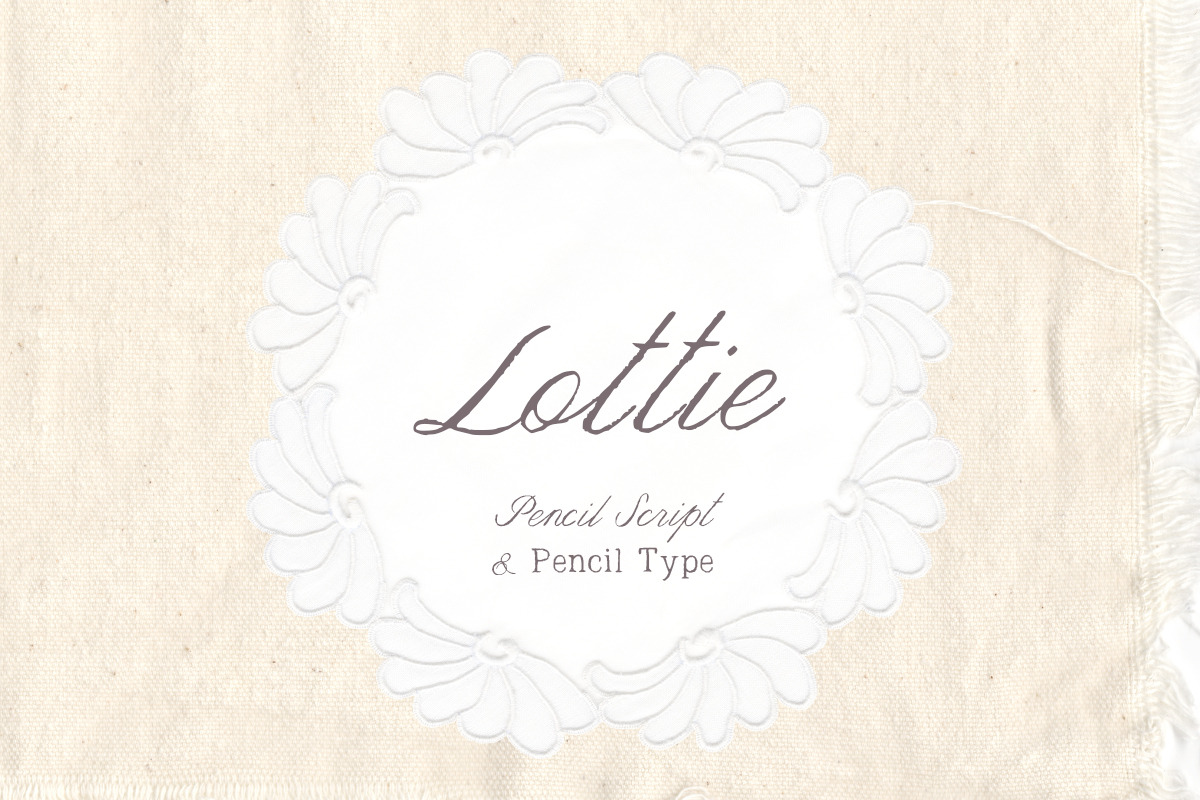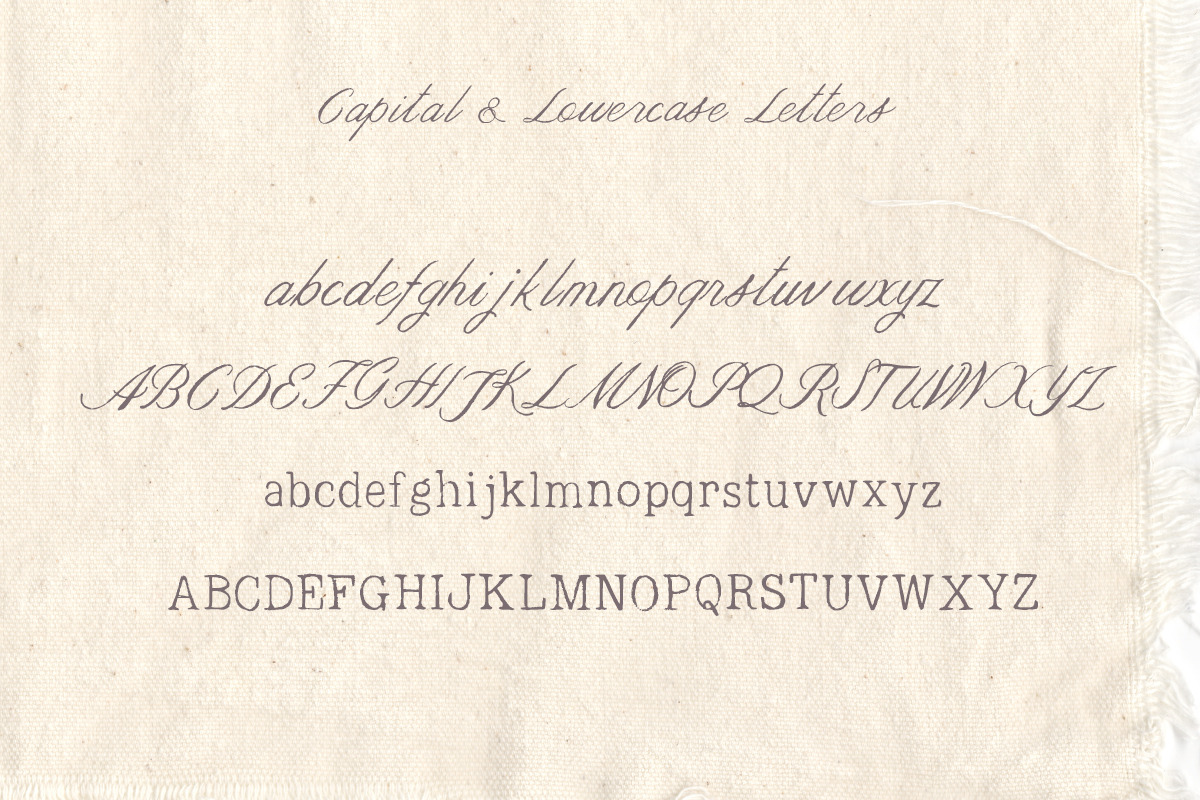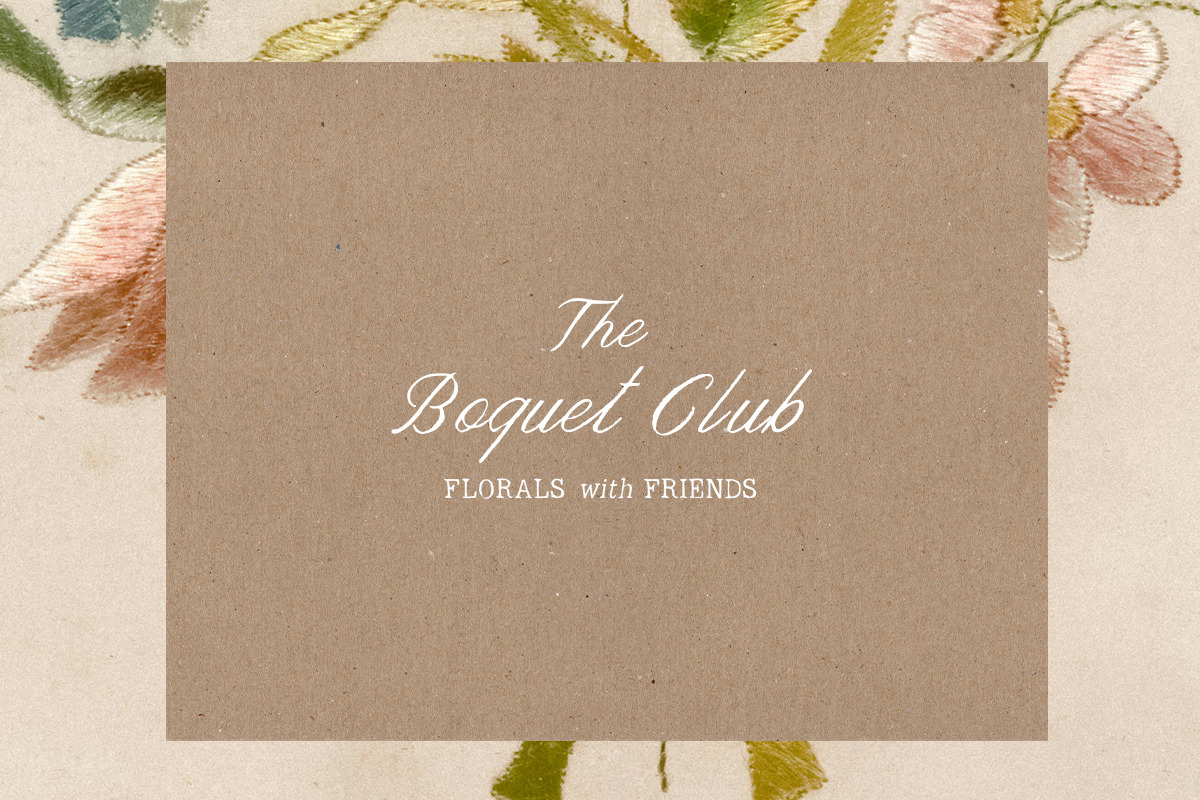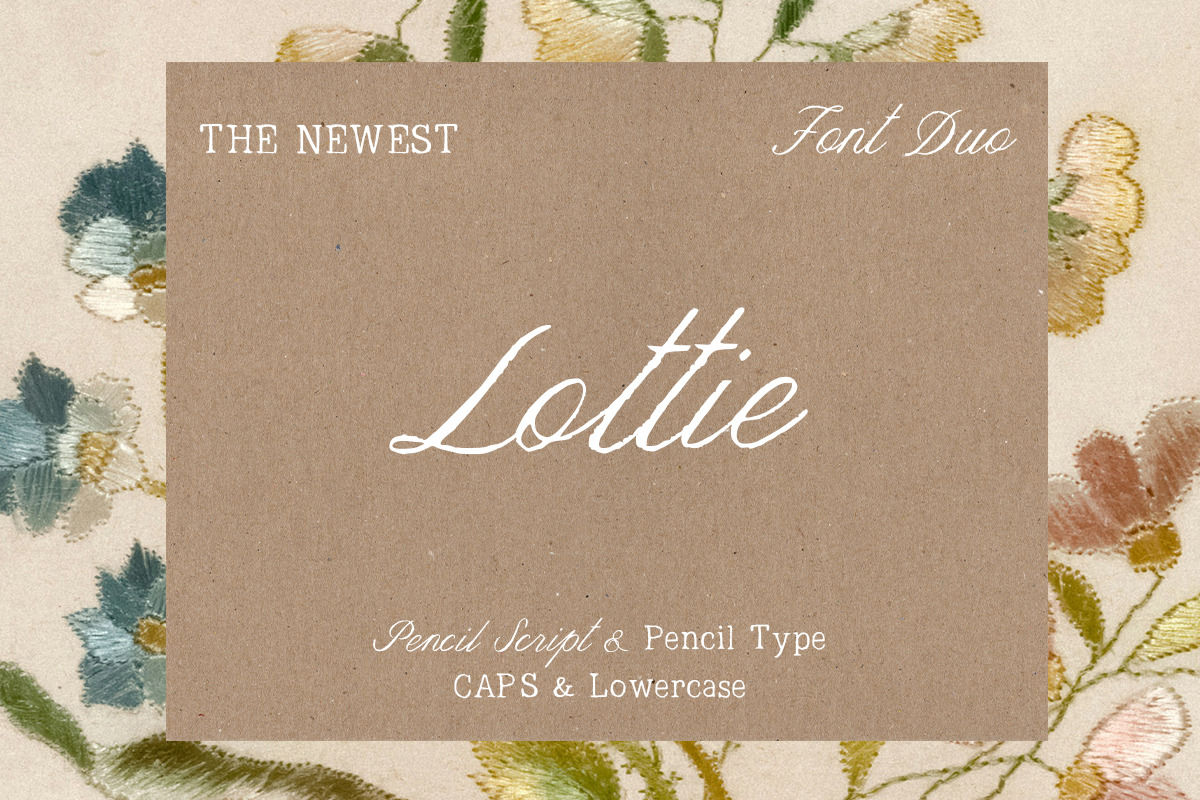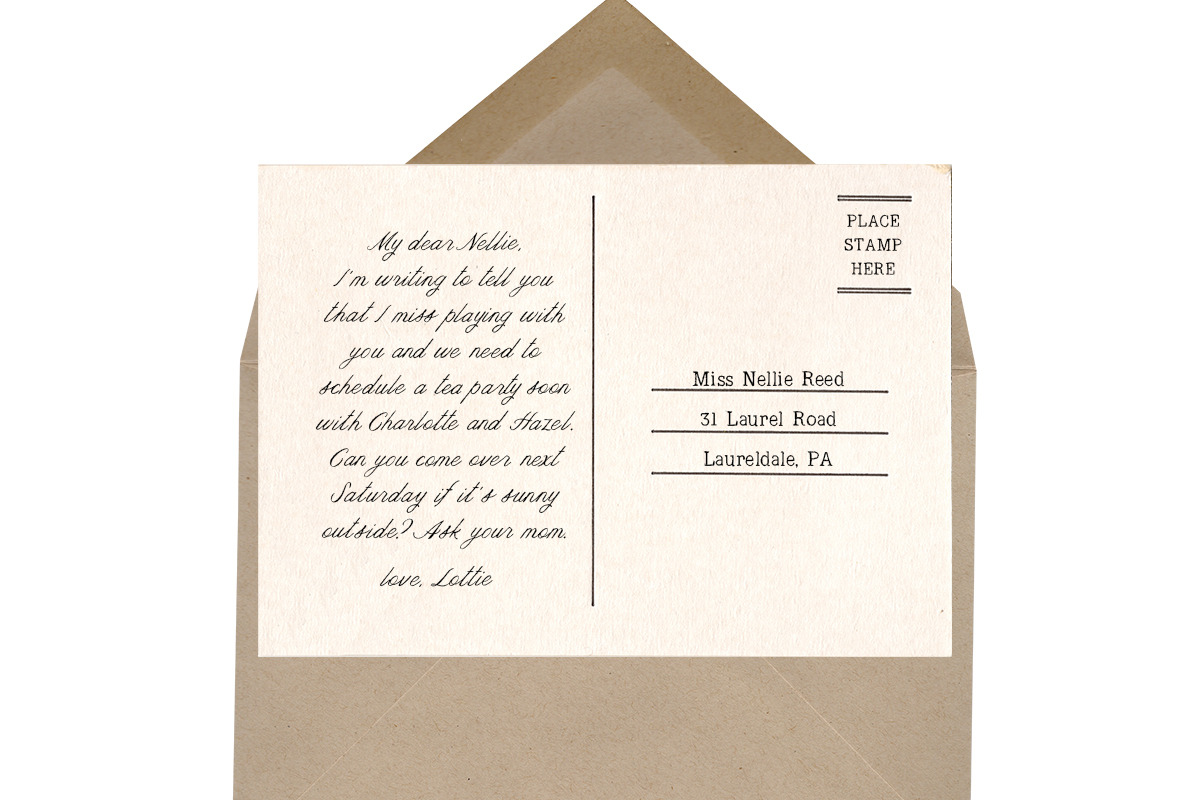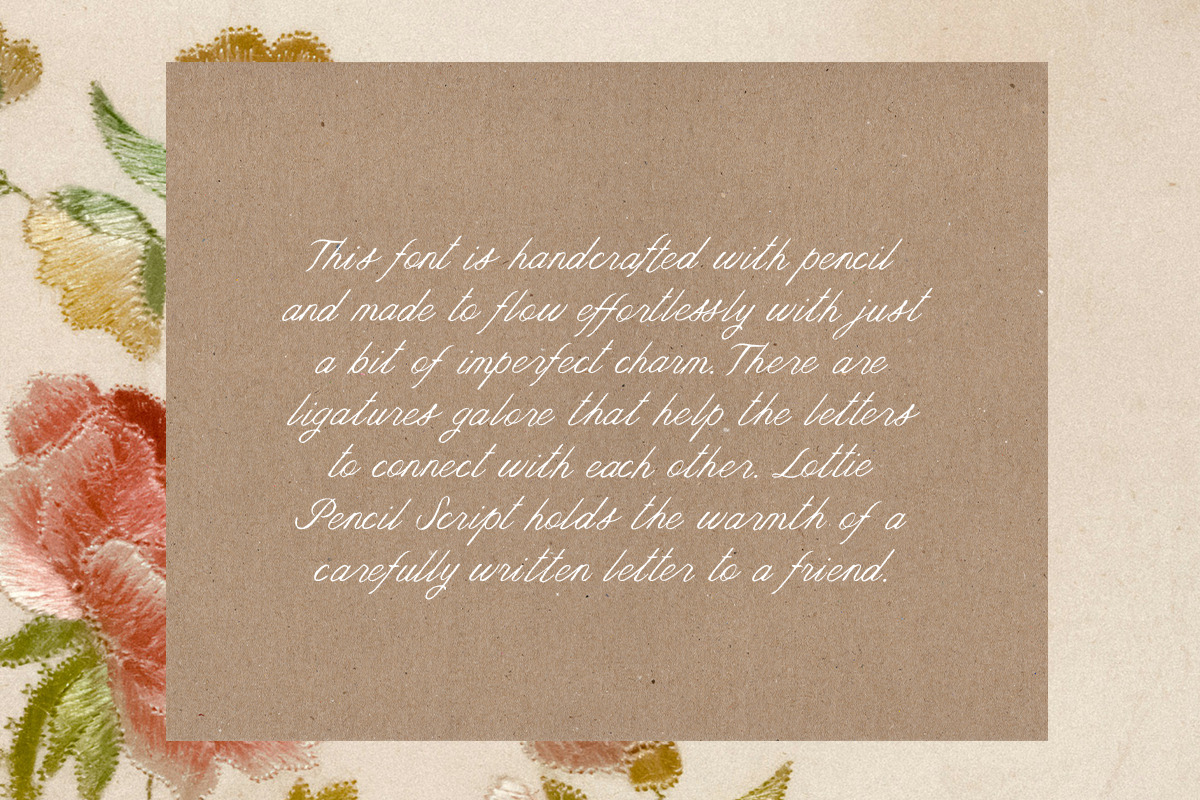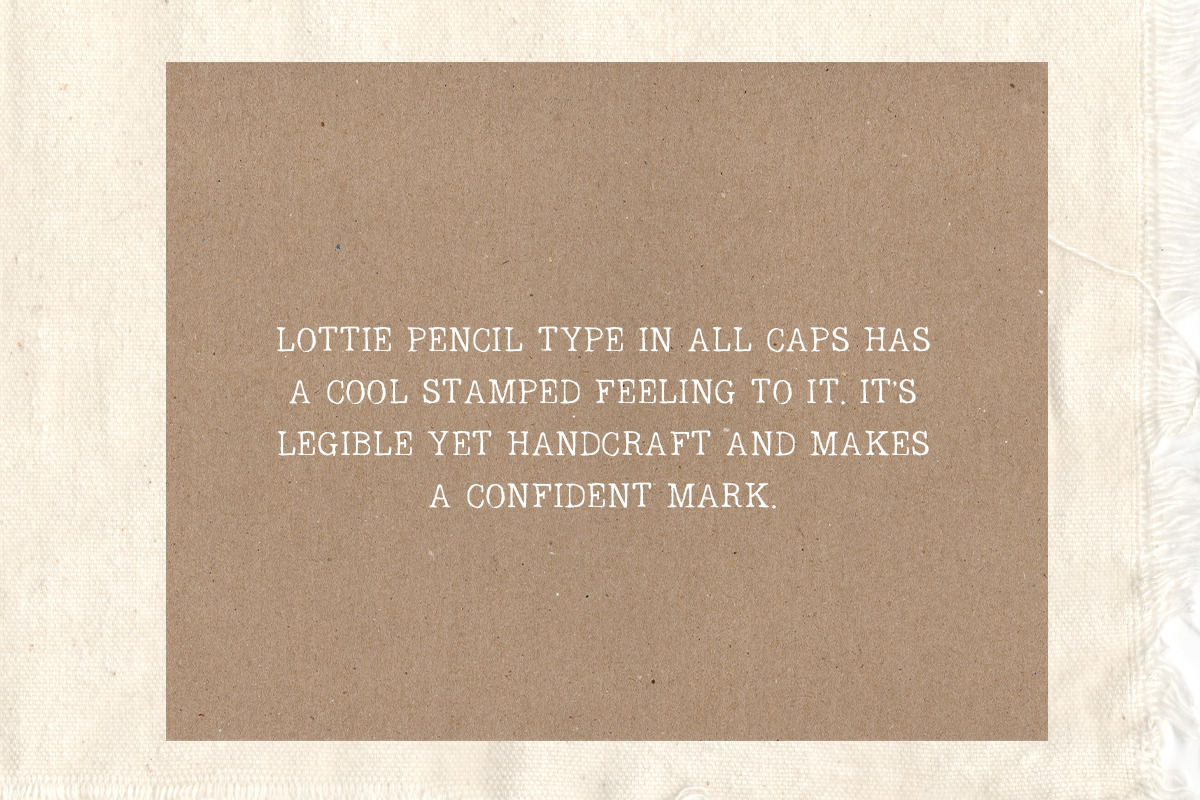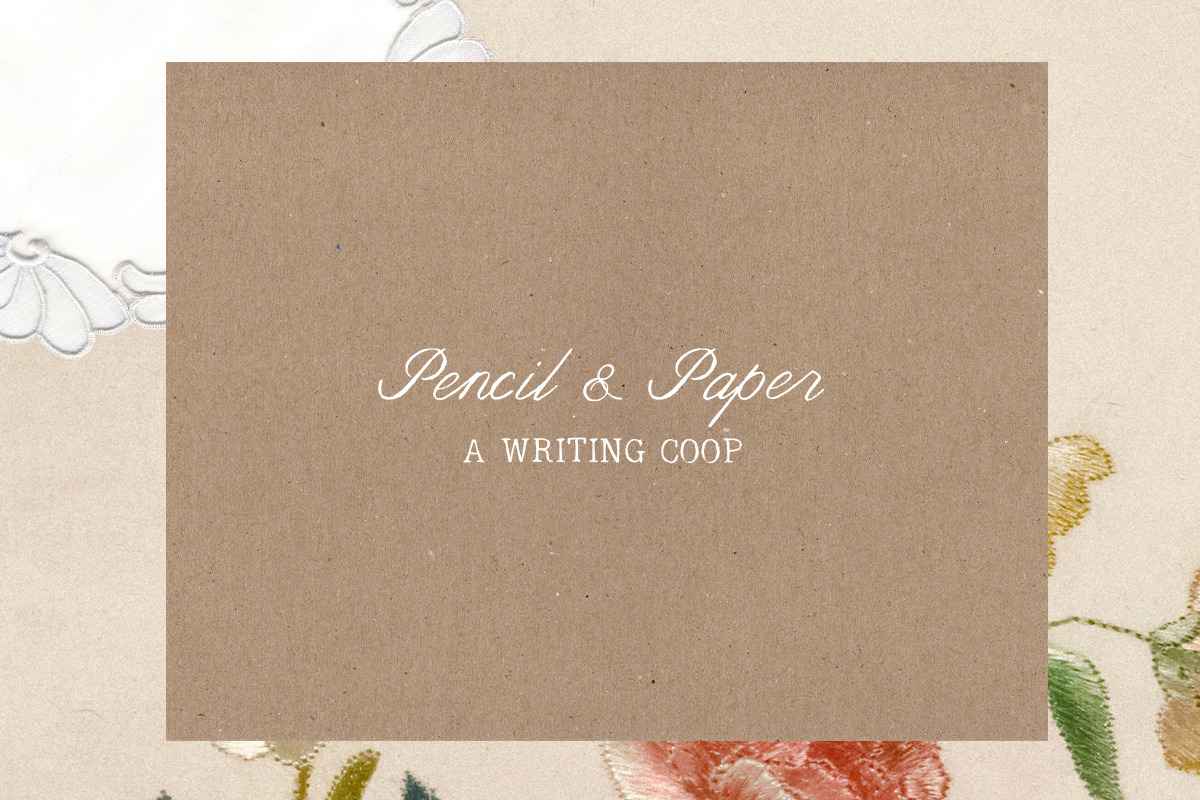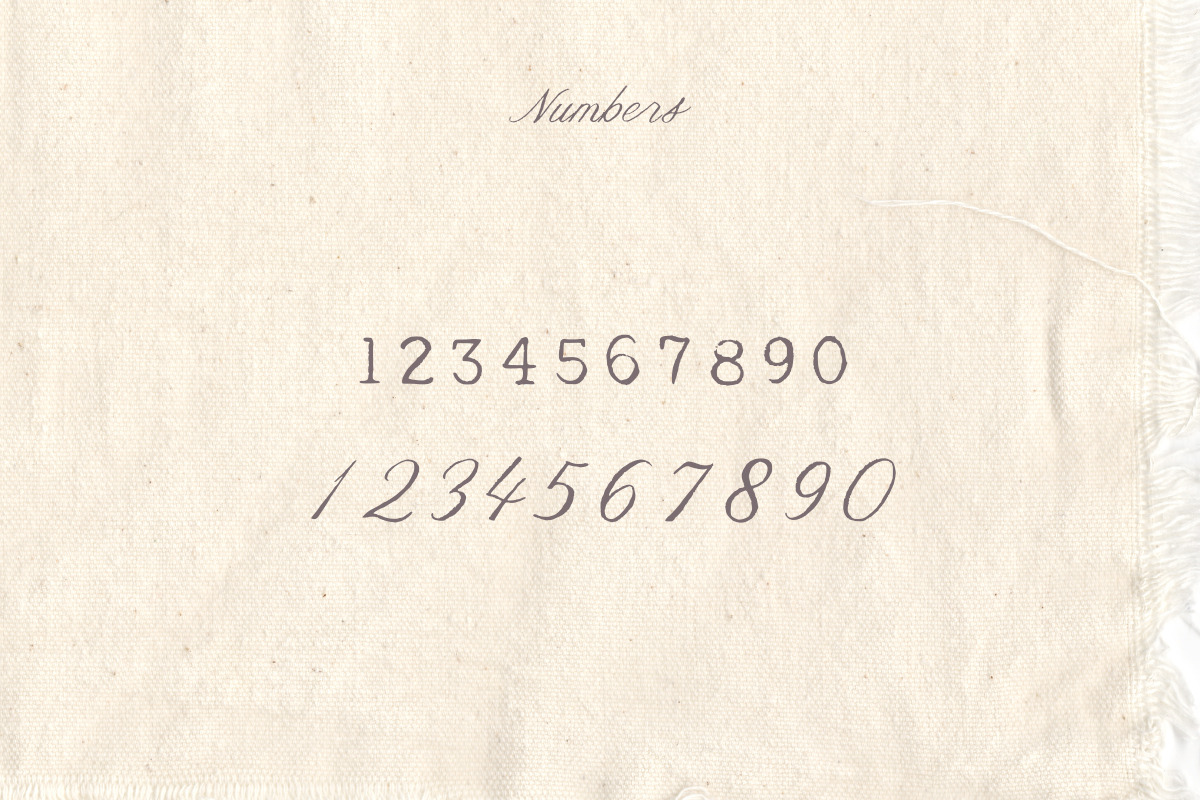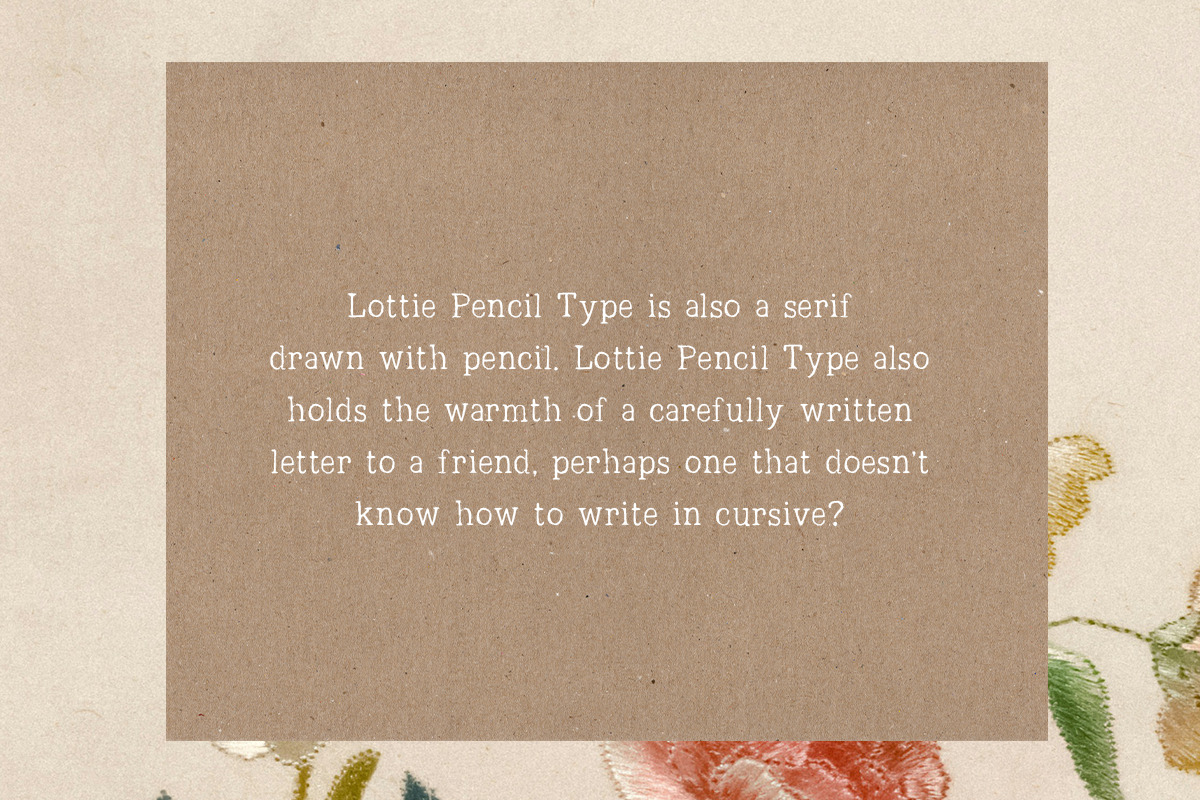
Lottie Pencil Script & Type Duo
Lottie Pencil Script and Type is a hand drawn (no ai) script and serif duo. It has a grandma-chic charm, like old money, but more humble.
Lottie Pencil Script holds the warmth of a carefully written letter to a friend. It's drawn with pencil and made to flow effortlessly with just a bit of imperfect charm. There are ligatures galore that help the letters to connect with each other.
Lottie Pencil Type is a serif drawn with pencil and also holds the warmth of a carefully written letter to a friend with timeless feel.